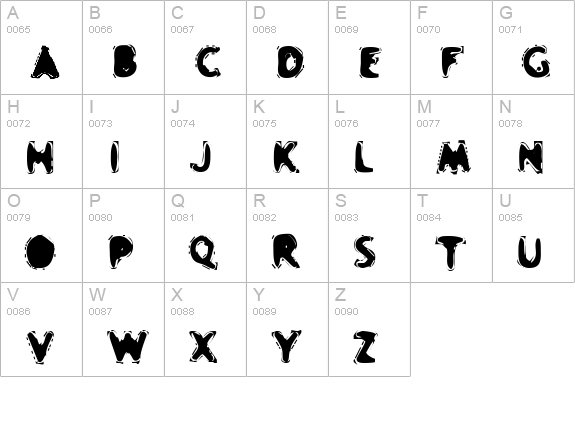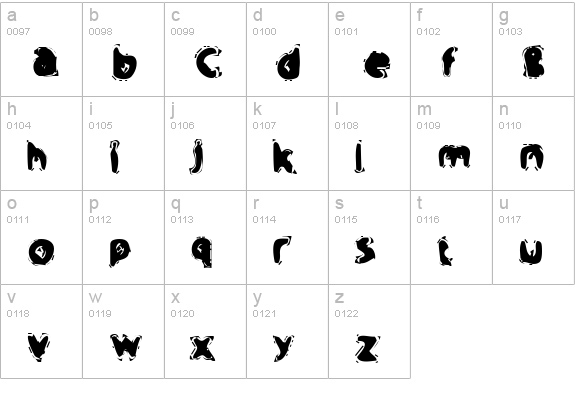
Introducing the Crap Music font, a quirky and fun typeface that's perfect for adding a touch of whimsy to your designs. This unique font features playful and irregular letter shapes that give your text a hand-drawn feel. Whether you're working on a poster, invitation, or logo, Crap Music is sure to make your project stand out. Best of all, Crap Music font is available for free download at FontsMarket.com. Simply head over to the website and grab this playful typeface to add a dose of creativity to your next design project. Don't miss out on the opportunity to elevate your designs with the charming and free Crap Music font today!